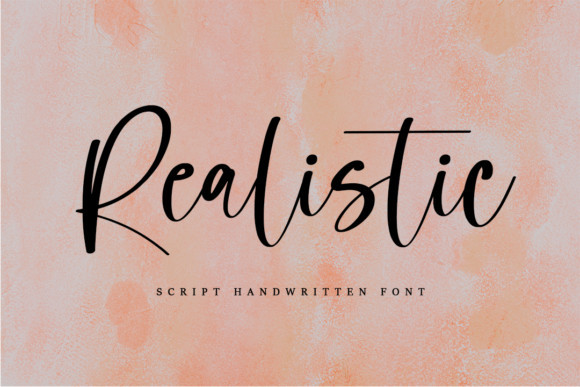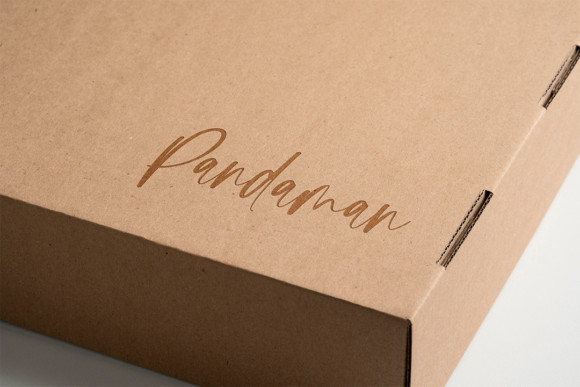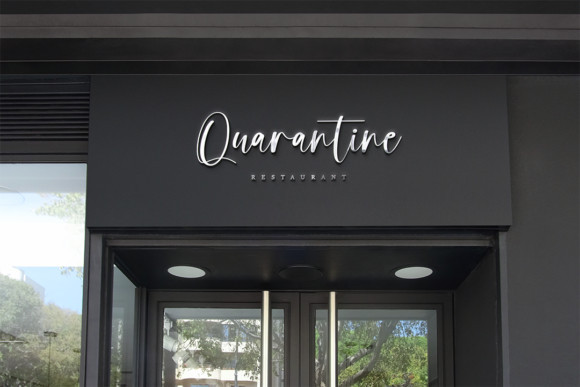
Realistic Font
Realistic is a fashionable and incredibly elegant script font. Relaxed and stylish, this font will instantly elevate each of your designs. Fall in love with its incredibly versatile style and use it to create spectacular designs!